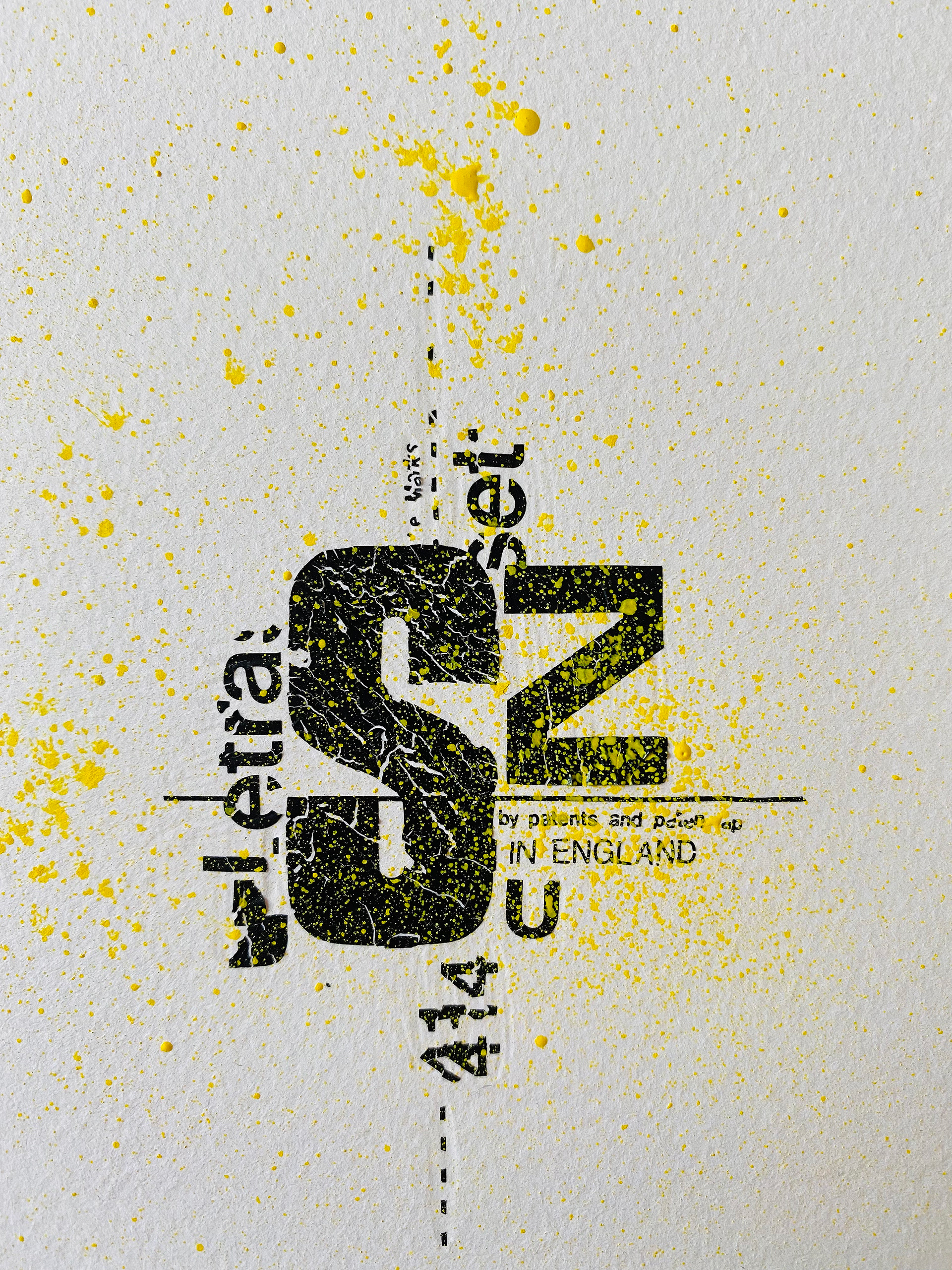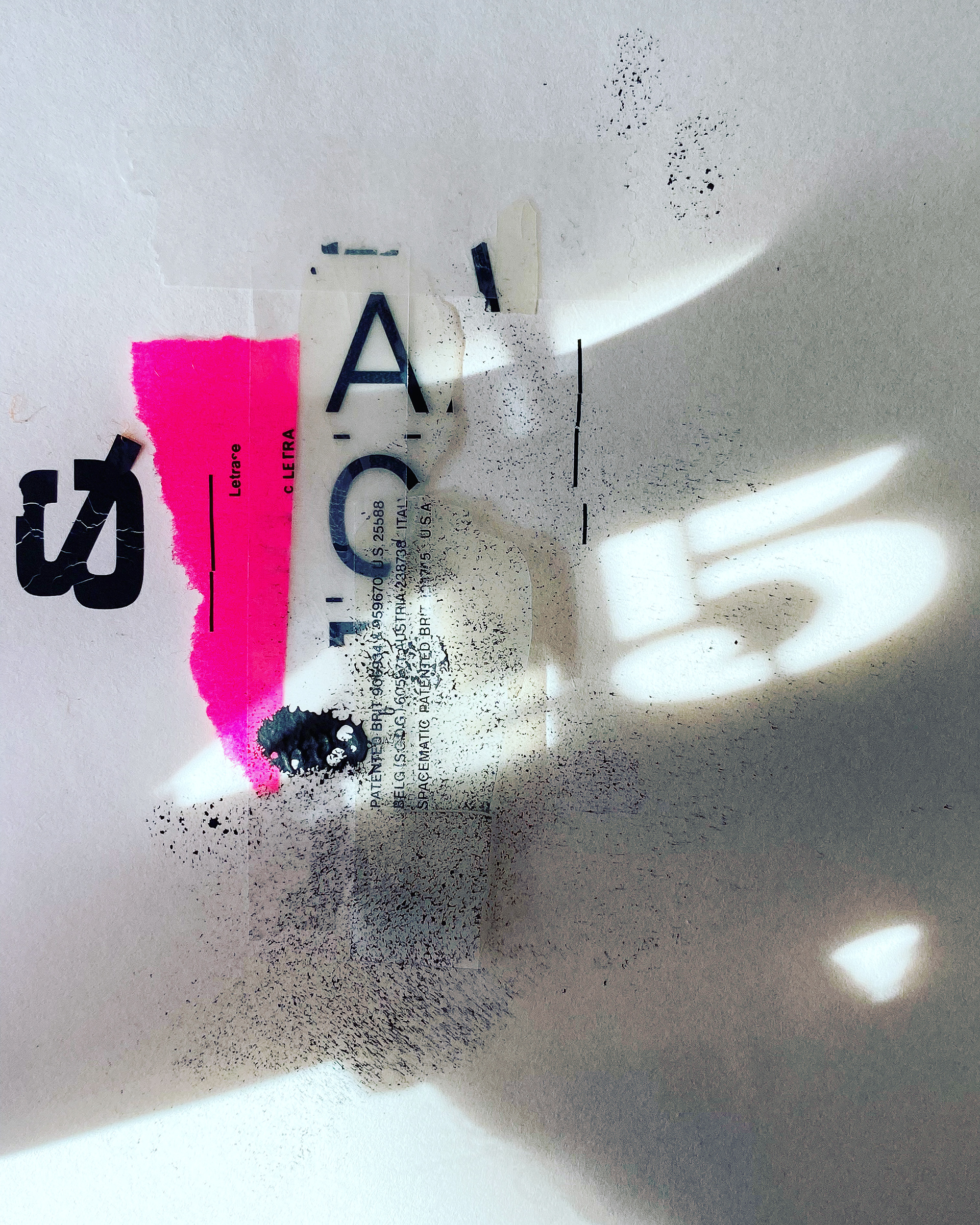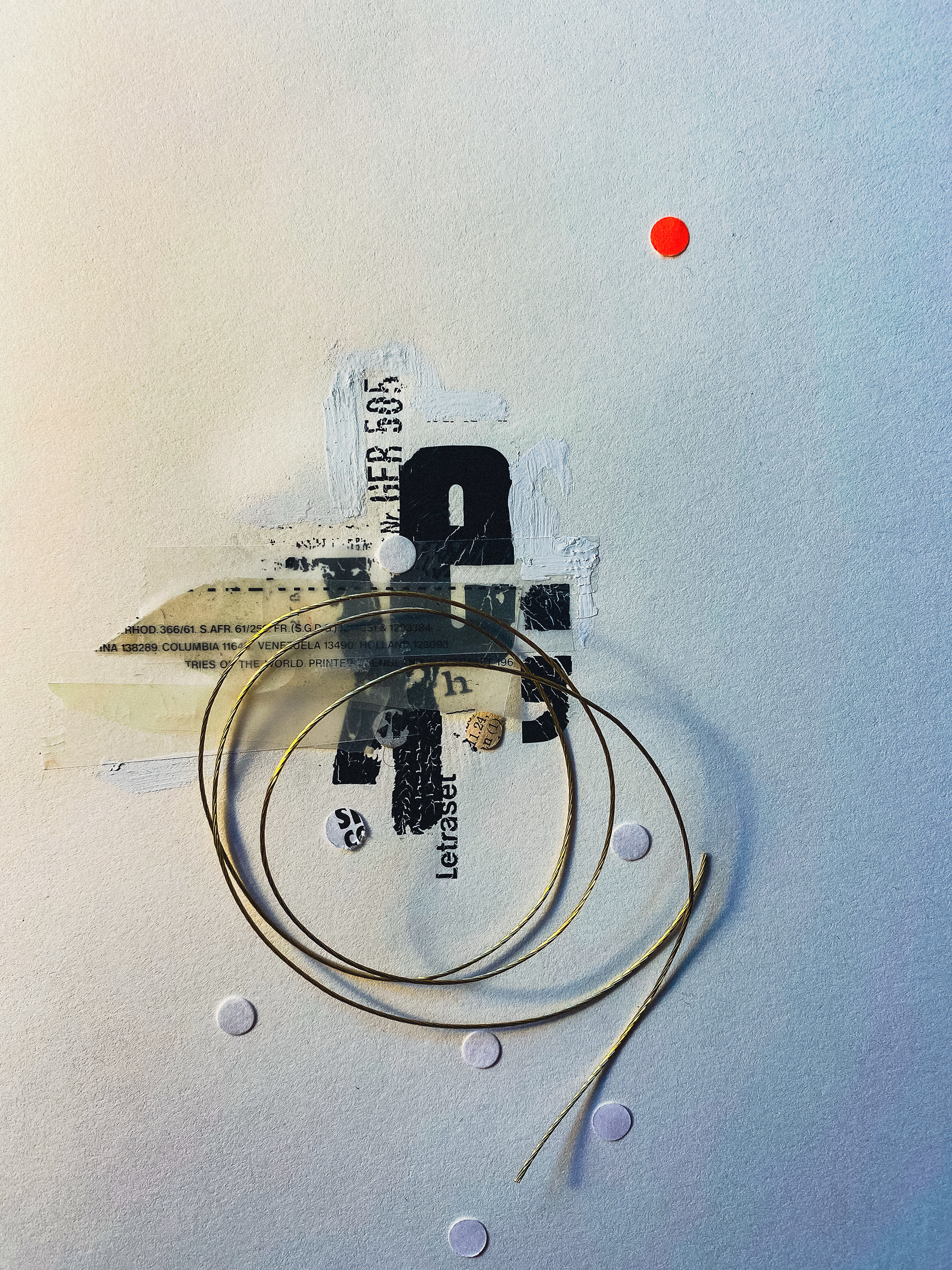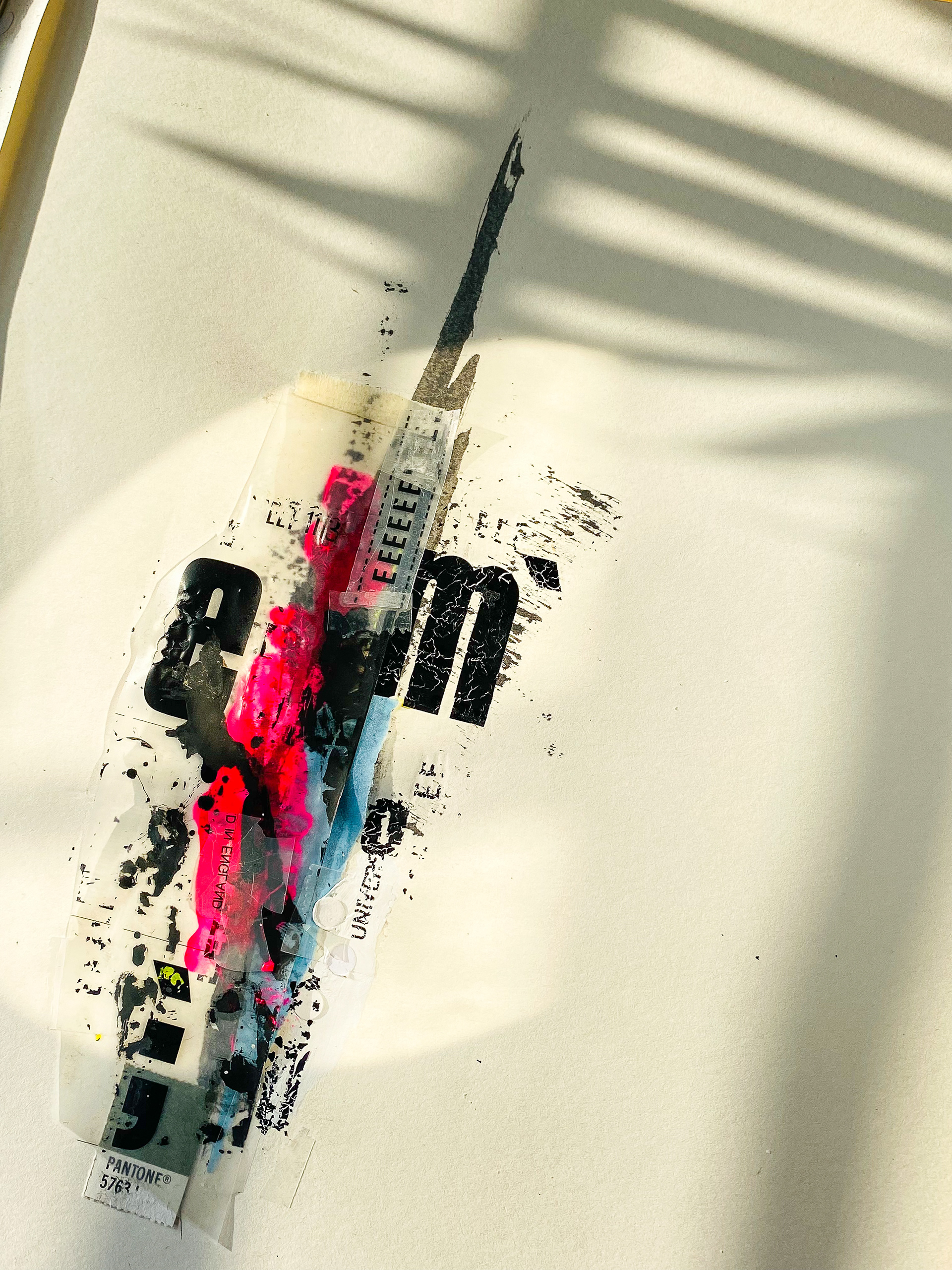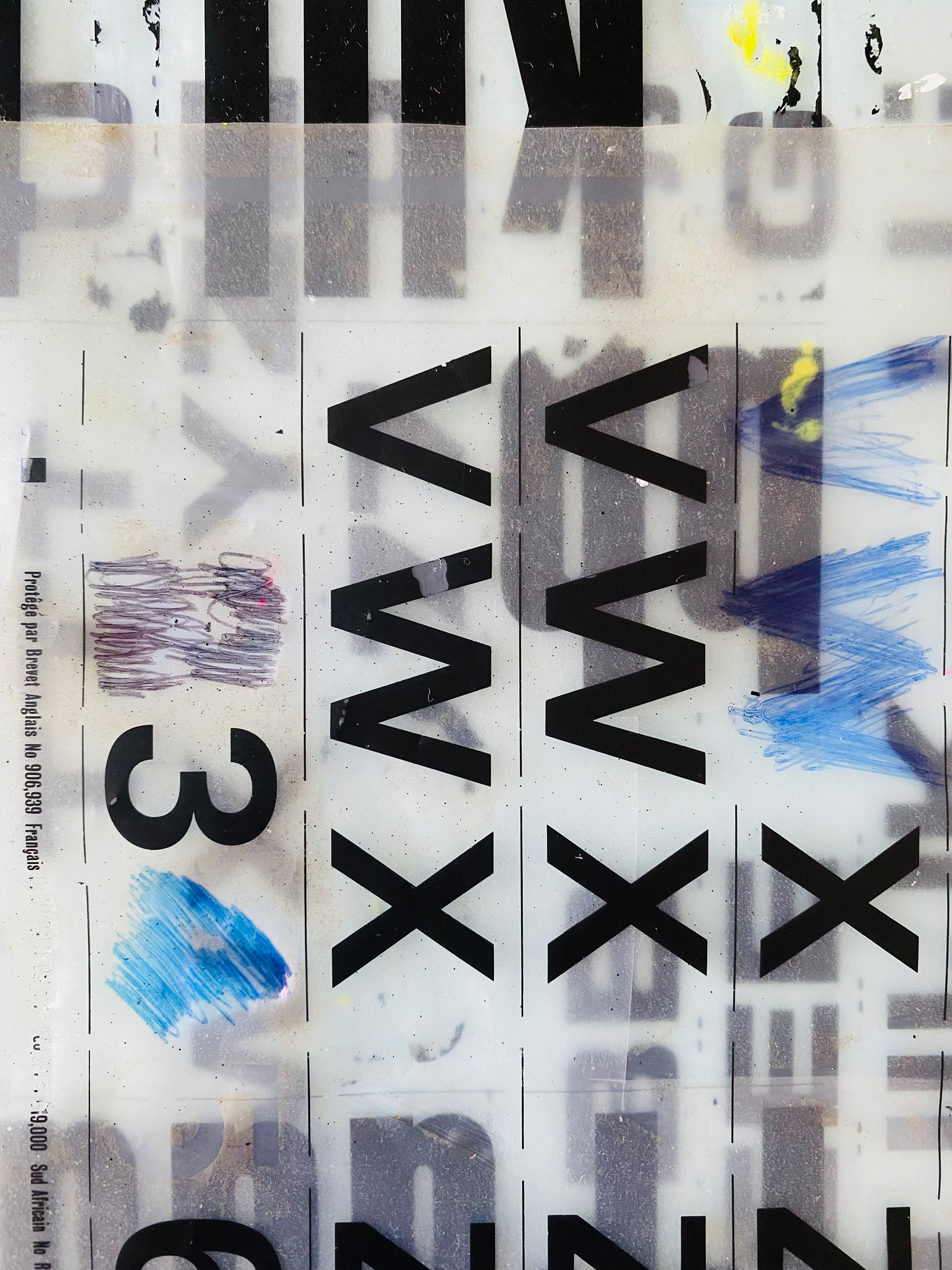
Letraset© overlaying paint
Layered Letraset© Sheets
Letraset© used in collage test
Letraset© and projected light
Letraset© and hole punched printed paper
Using the graphic designer’s classic – ‘Letraset’. Transferrable lettering that was used to create artwork… primarily headlines and small quantities of text. When the computer came along it became obsolete… well almost // Fortunately, perfection is not required and due to its age it has lost its durability so when rubbing down onto paper/card it buckles and fragments. Decaying aged feel is perfectly achieved.